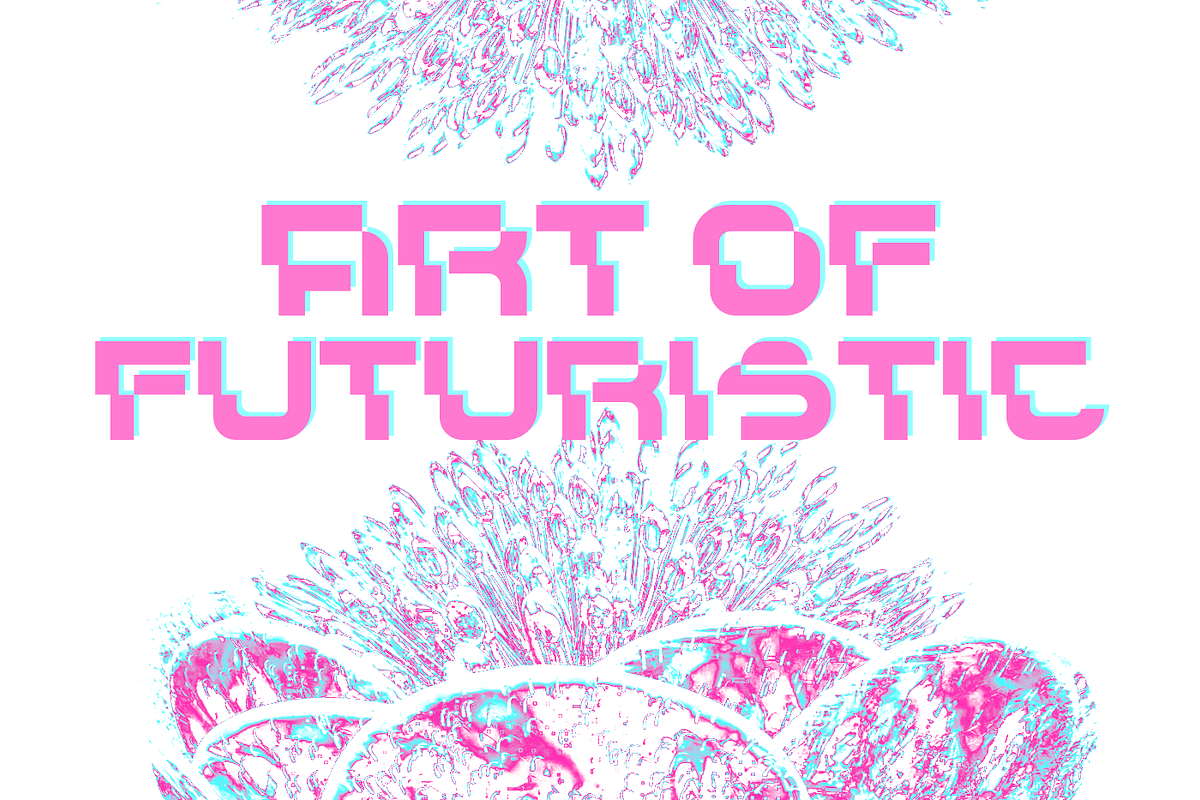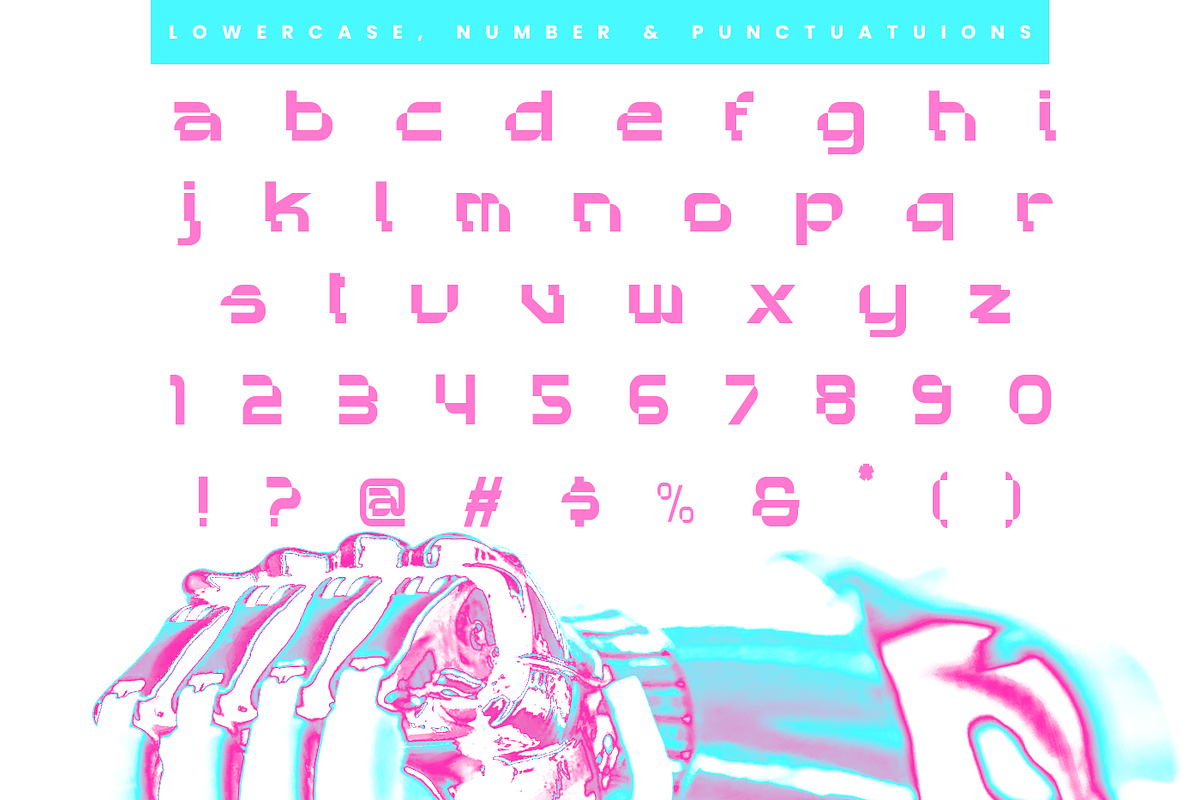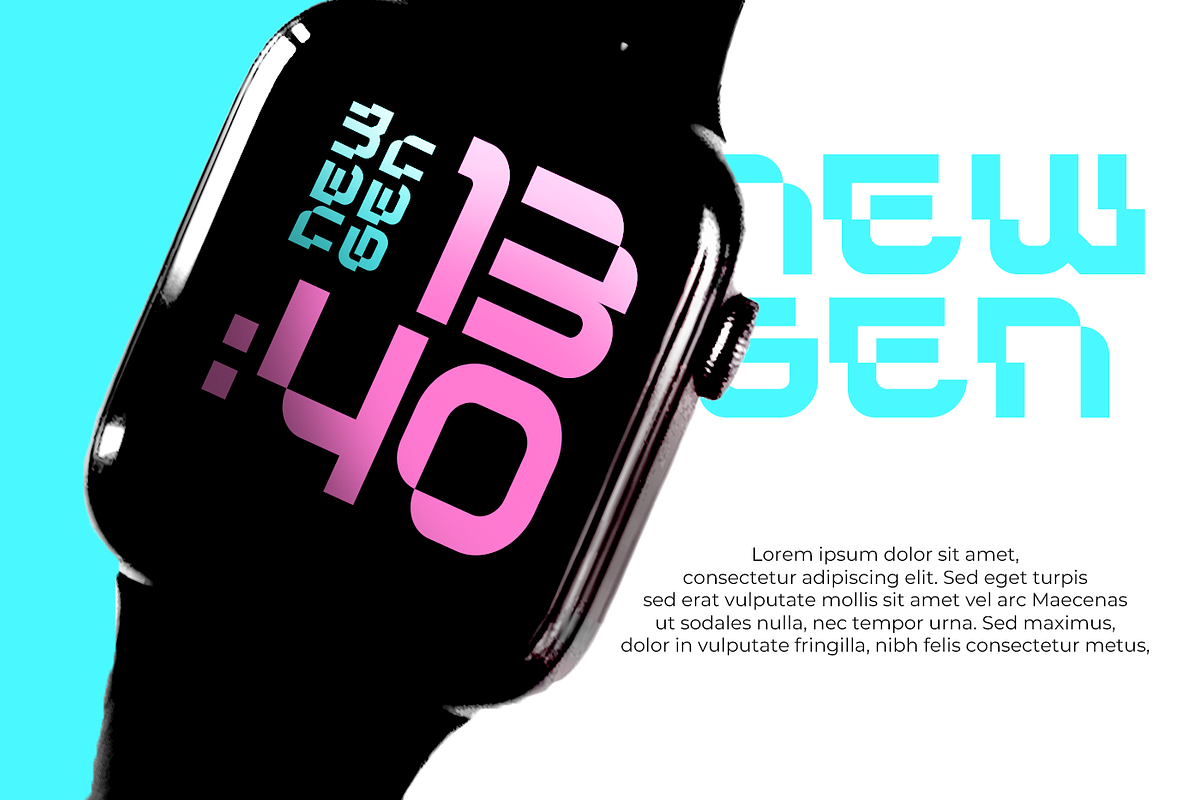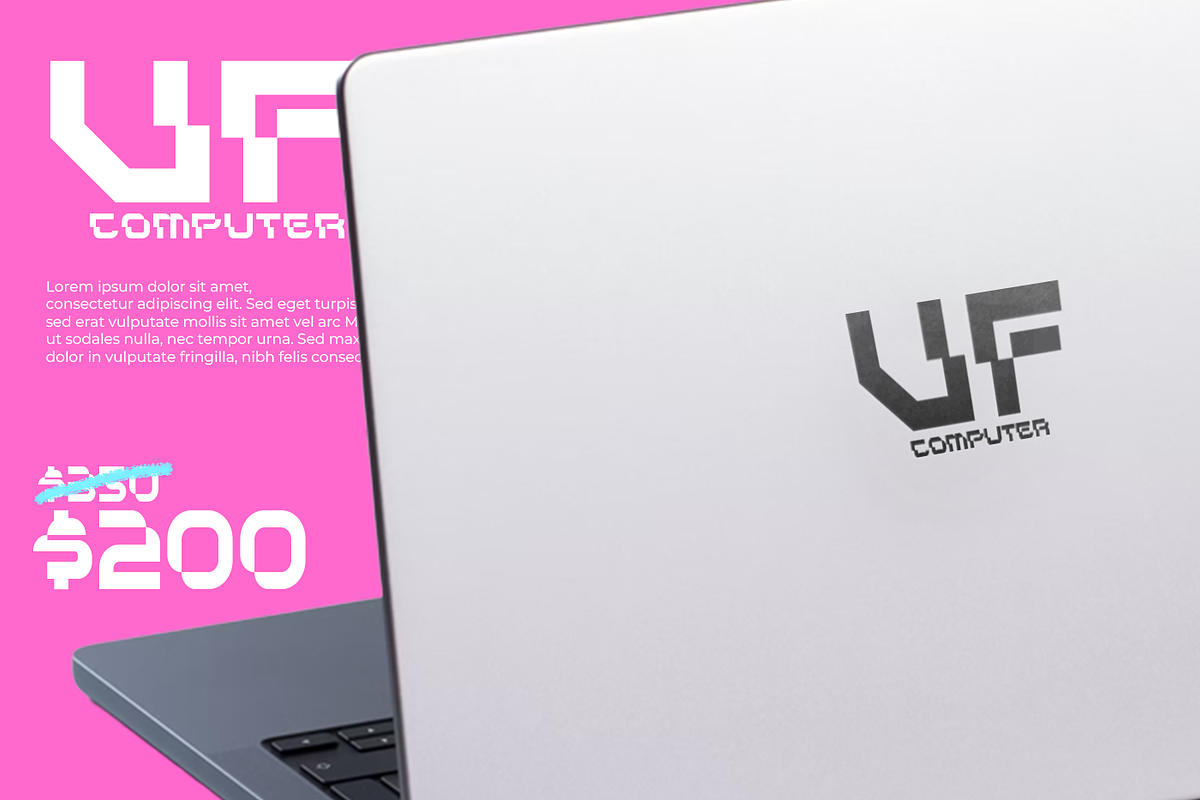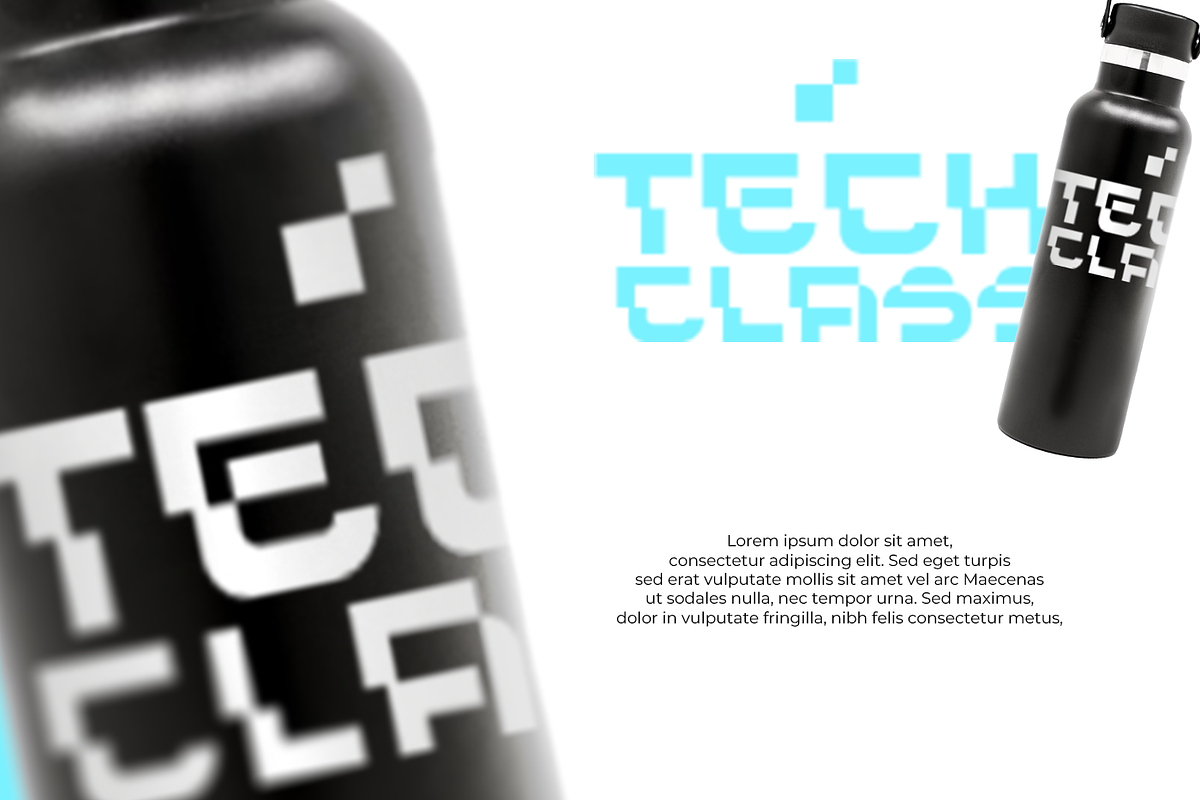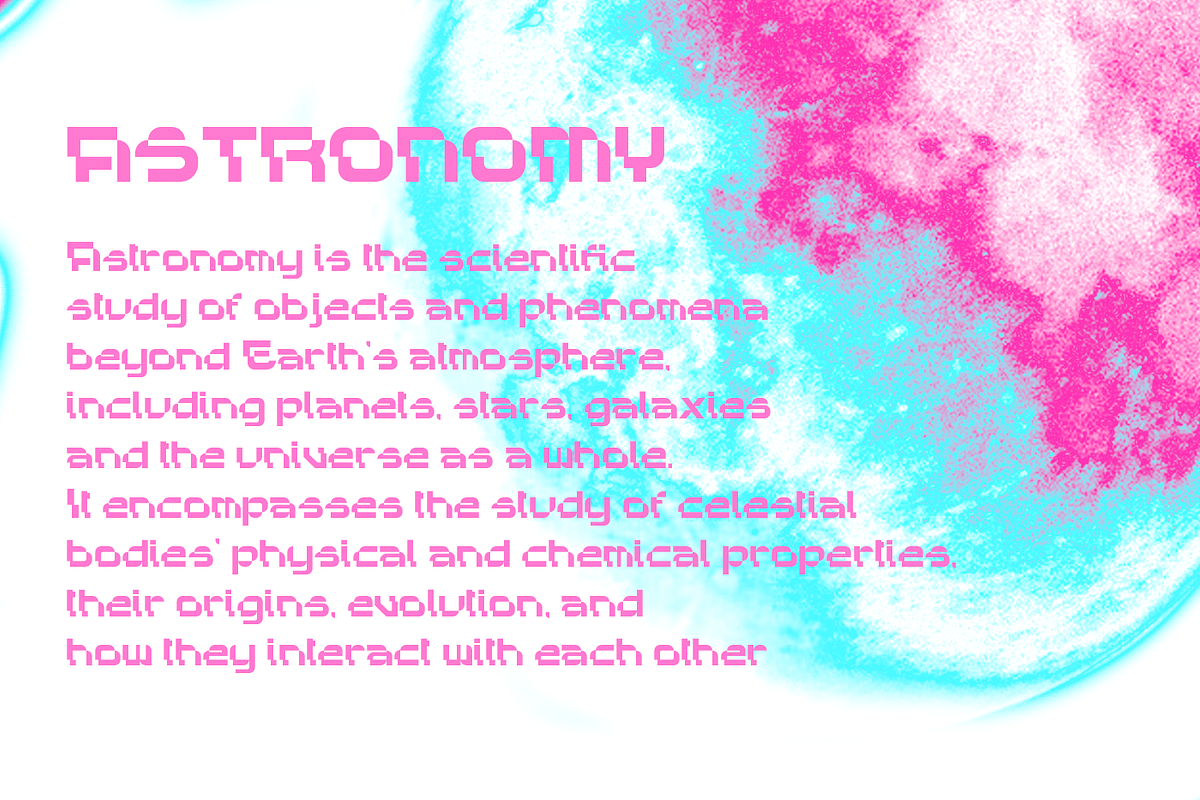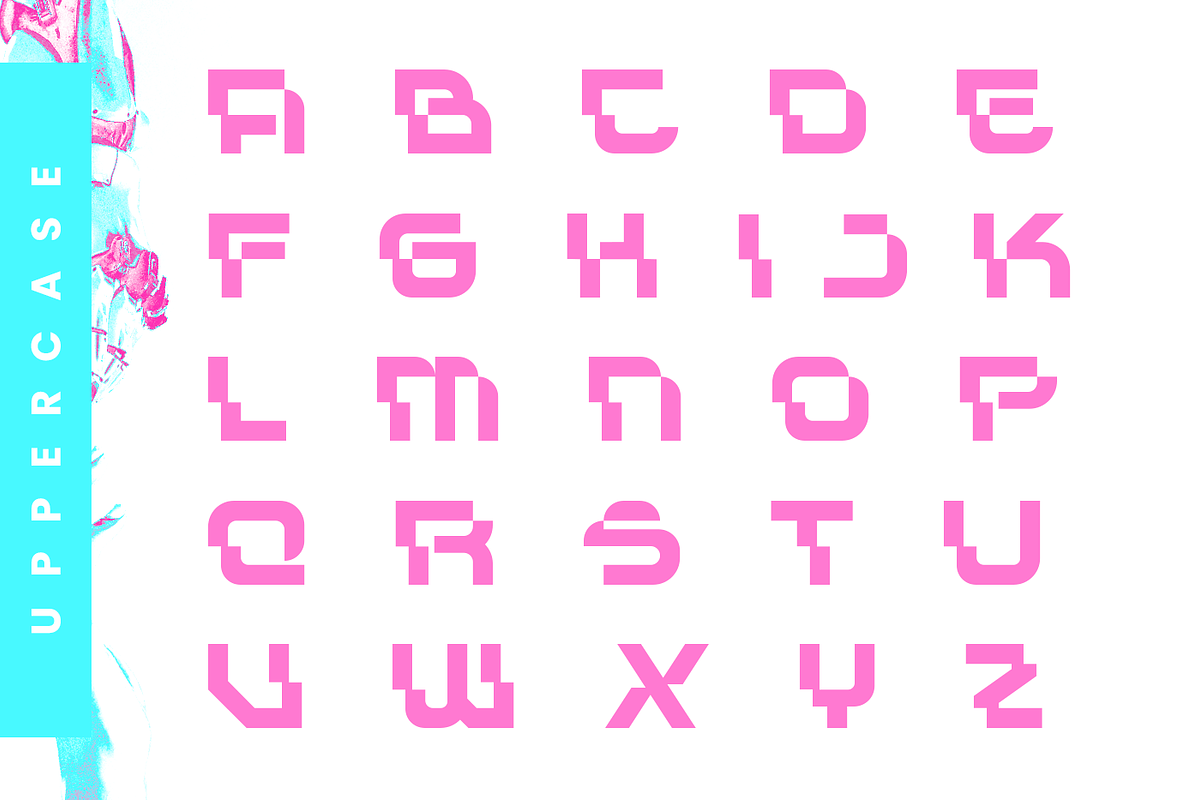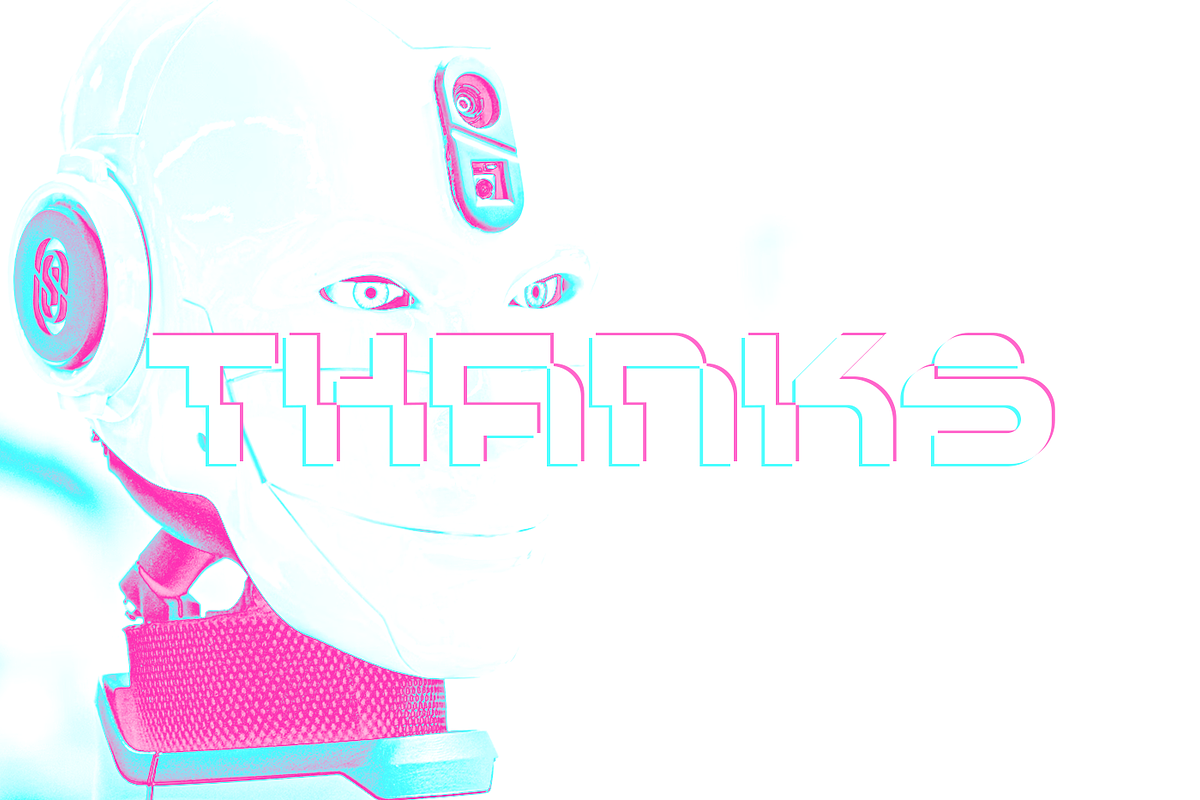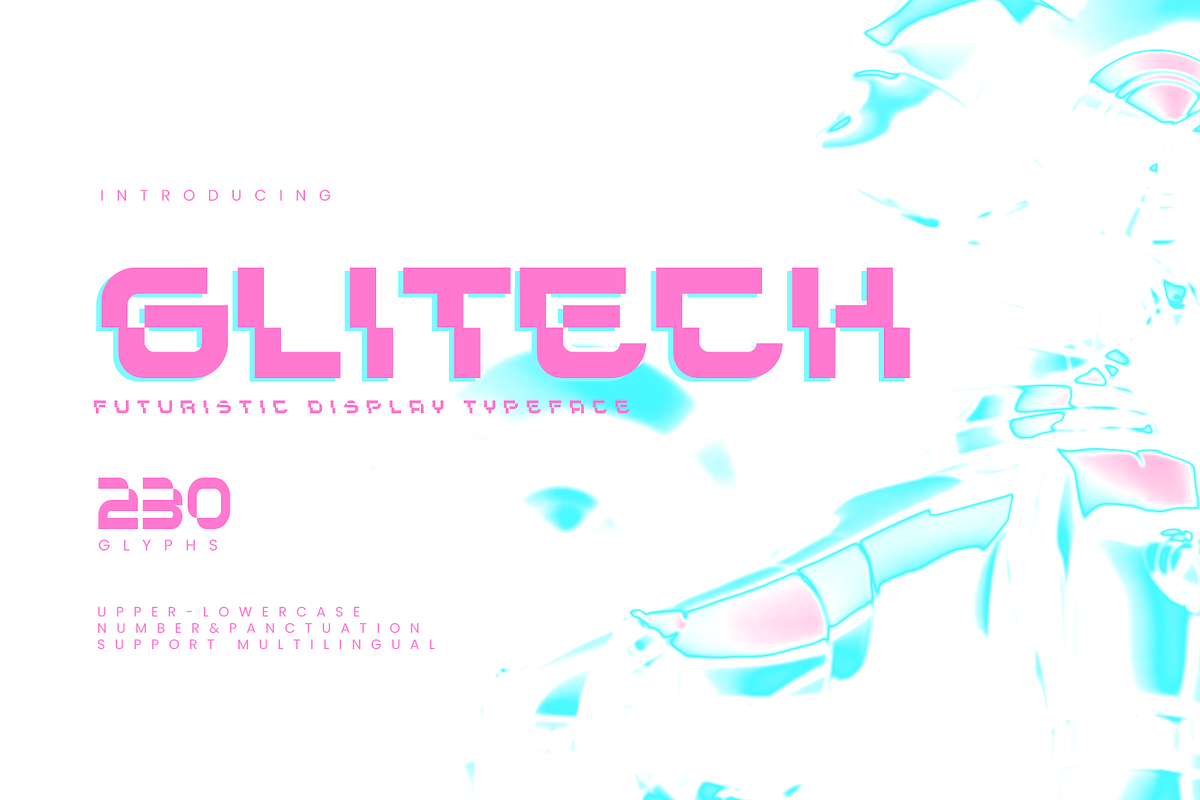
Glitech Futuristic Display
Glitech is a display font with a modern and futuristic theme. This font has a shape inspired by the glitch shape.
Glitech is perfect for branding projects, logos, wedding designs, social media posts, advertisements, product packaging, product designs, labels, photography, watermarks, invitations, stationery, and any project that requires modern and futuristic theme font.
Font feature
Uppercase, Lowercase, Numerals & Punctuations, Multilanguage